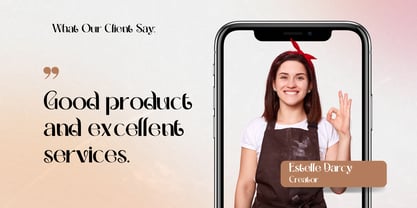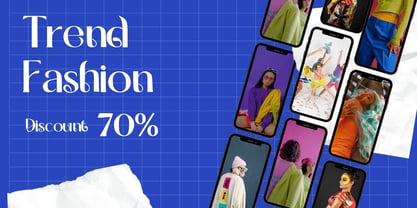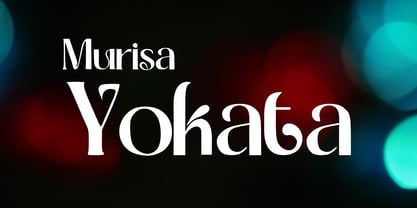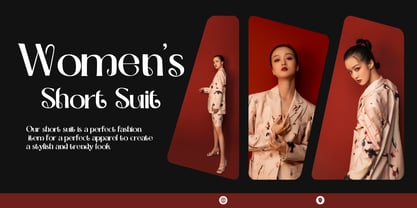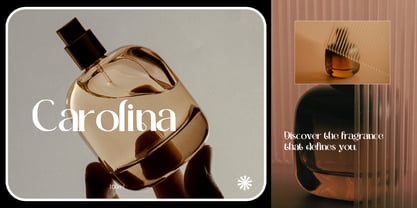
Murisa Yokata
by Murisa Studio
The Murisa Yokata Font Family was designed by Lili Sadili and published by Murisa Studio. Murisa Yokata contains 4 styles and family package options. More about this family
🎭 Murisa Yokata – A Masterpiece of Avant-Garde Elegance
Murisa Yokata is a high-fashion, display serif typeface that seamlessly blends the raw energy of modern art with the timeless sophistication of luxury editorial design. Meticulously crafted for creators who refuse to blend in, this font is a statement piece designed to elevate any visual identity to the highest echelons of prestige.
✨ The Design Philosophy
Every glyph in Murisa Yokata is a study in contrast, balance, and deliberate asymmetry:
• 📐 High-Contrast Architecture: Bold, commanding vertical stems paired with razor-thin, elegant hairlines create an instant sense of premium luxury.
• 🌀 Artistic Swashes & Terminals: The whimsical, fluid loops on letters like A, P, and R, alongside the unique organic descenders of g and q, give the typeface a bespoke, haute couture aesthetic.
• ⚡ Avant-Garde Edge: The sharp, unexpected angles on characters like X and Z provide a striking, contemporary tension that cuts through the noise of traditional typography.
💼 Where It Thrives
This is not an ordinary font for everyday text; it is an elite design asset meant to take center stage. Murisa Yokata is the ultimate choice for:
• 🏷️ Luxury Branding: High-end fashion logomarks, identity design, and premium wordmarks.
• 📖 Elite Editorial: Avant-garde magazine covers, prestige publishing, and bold headlines.
• 📦 Premium Packaging: Sophisticated aesthetics for cosmetics, haute perfumes, and high-end goods.
• 🖼️ Exhibition & Arts: Statement posters, gallery signage, and exclusive event invitations.
Designers: Lili Sadili
Foundry: Murisa Studio